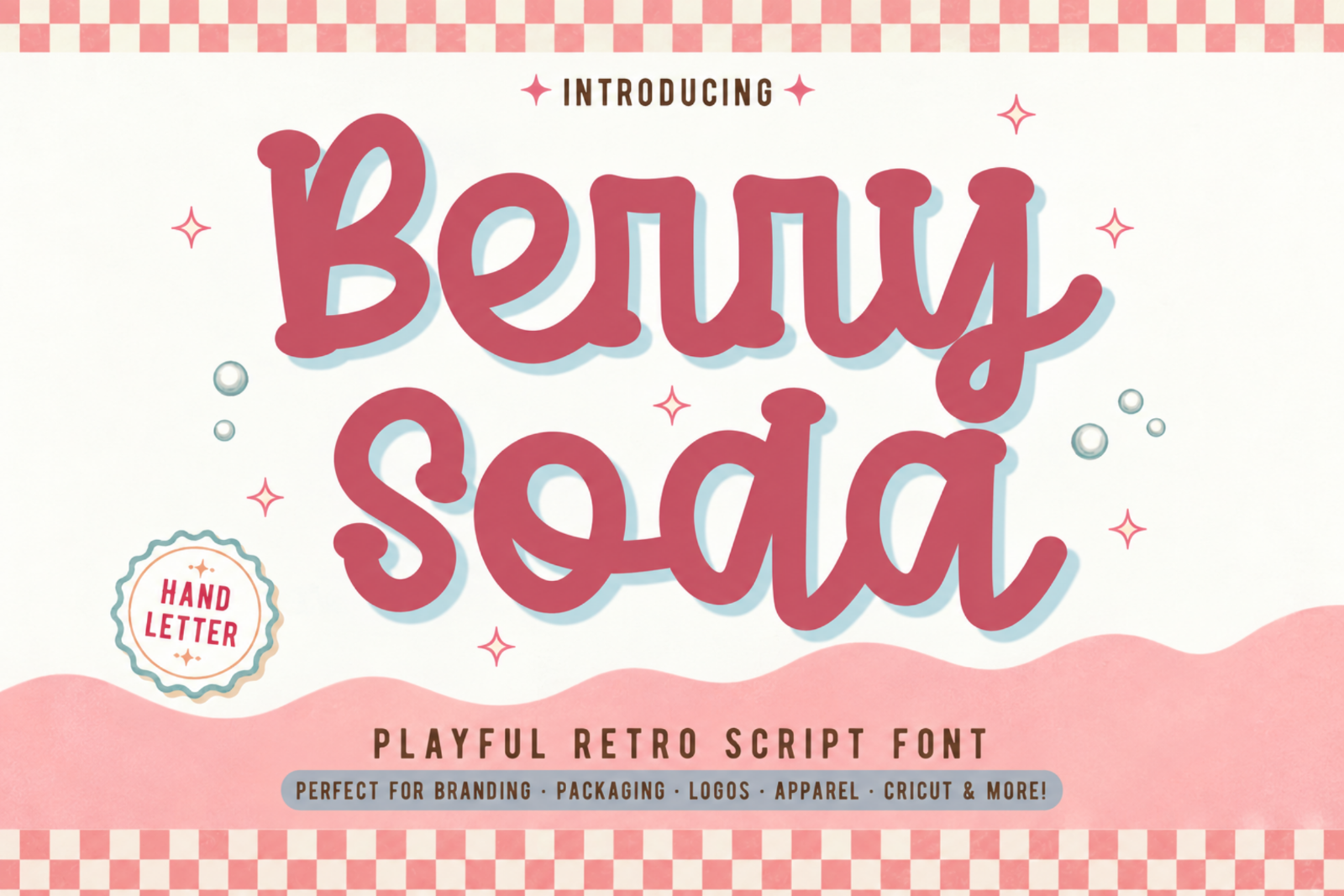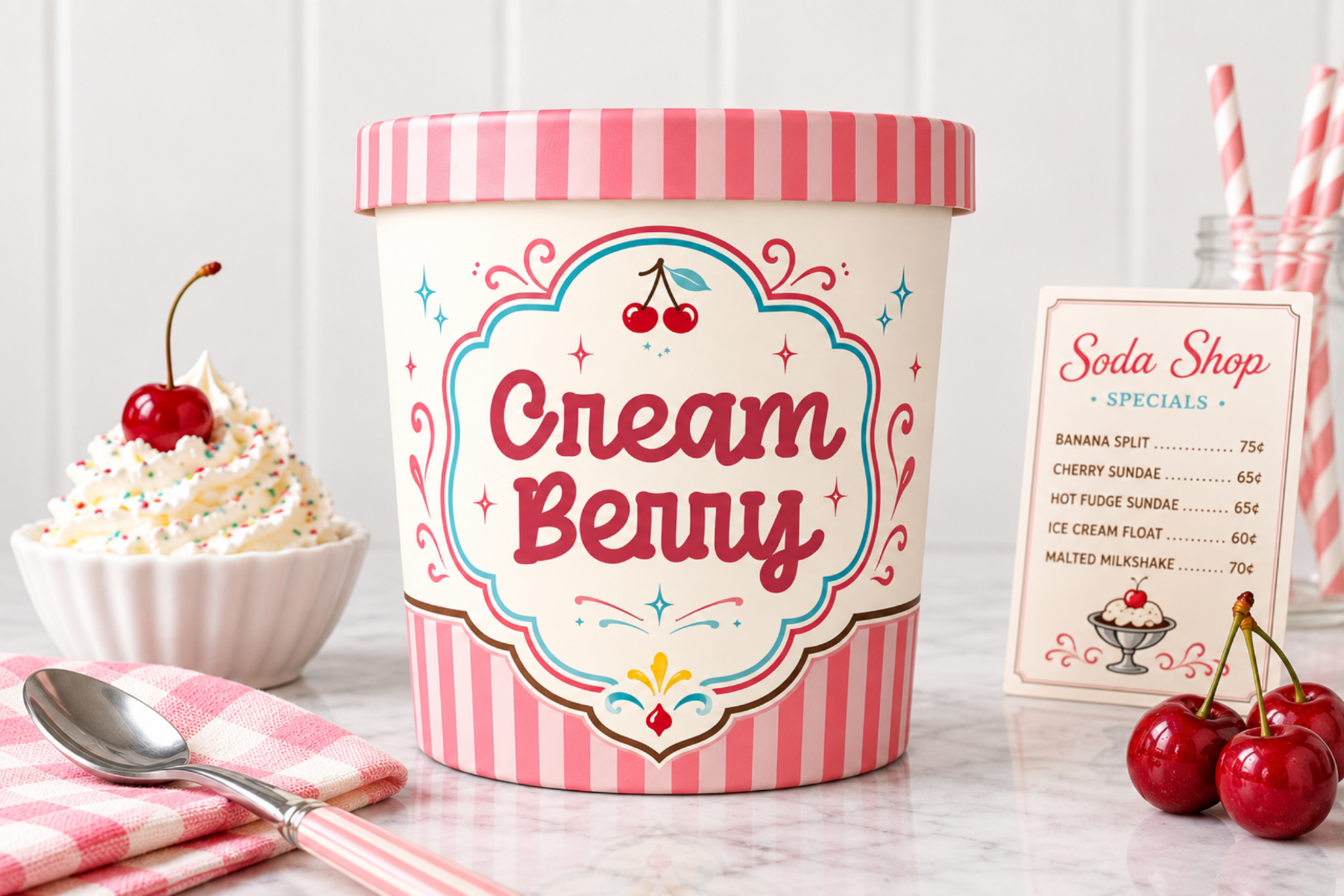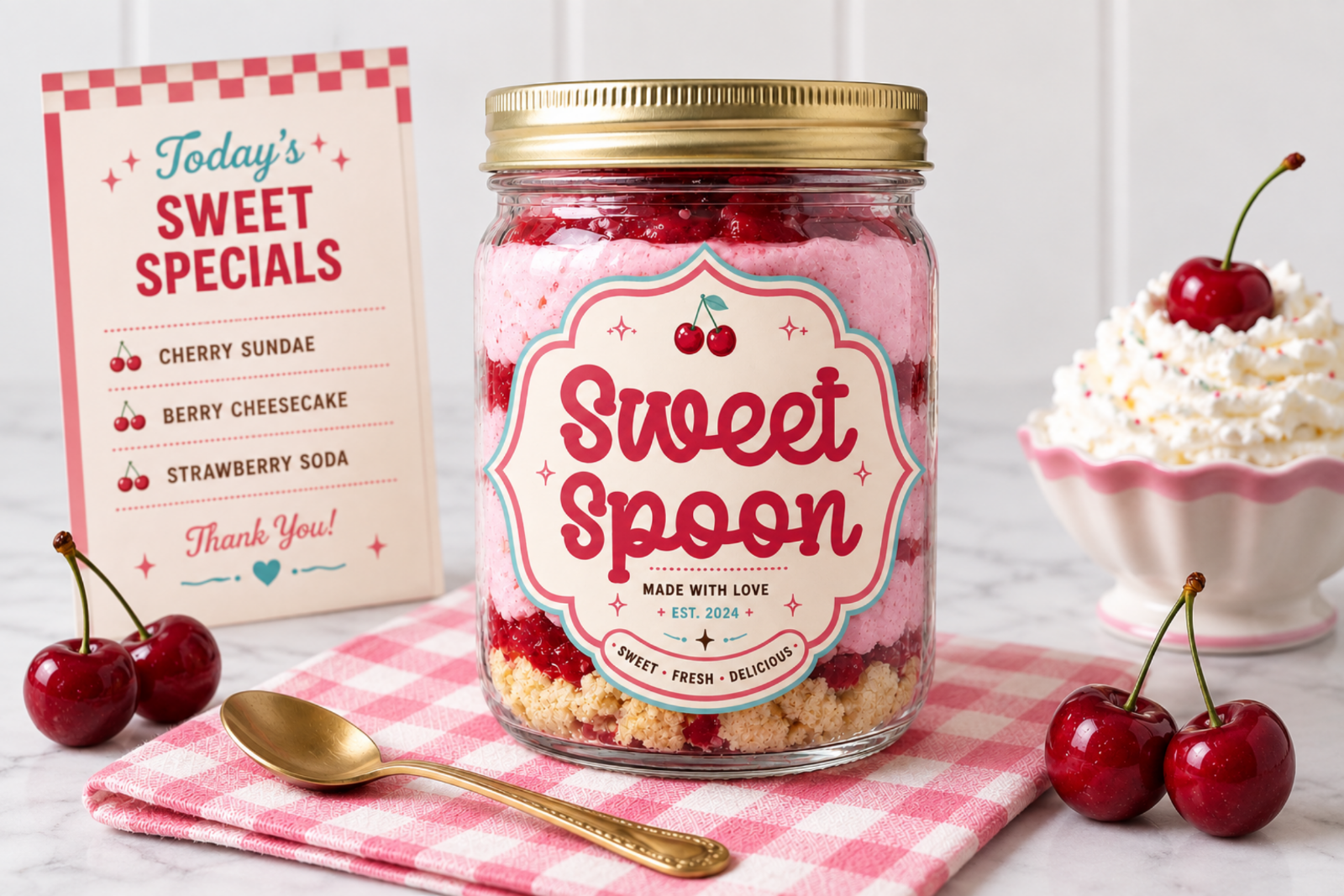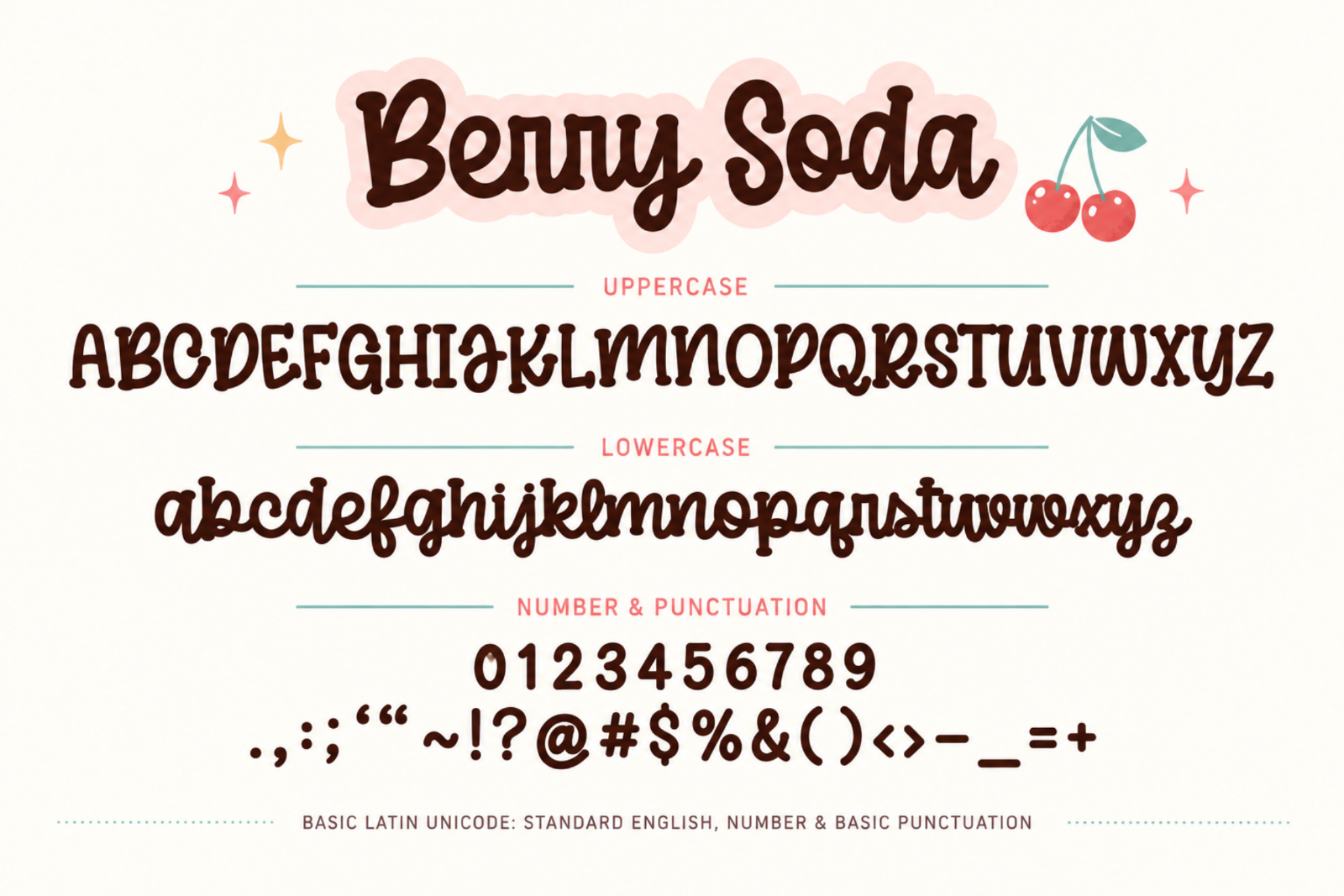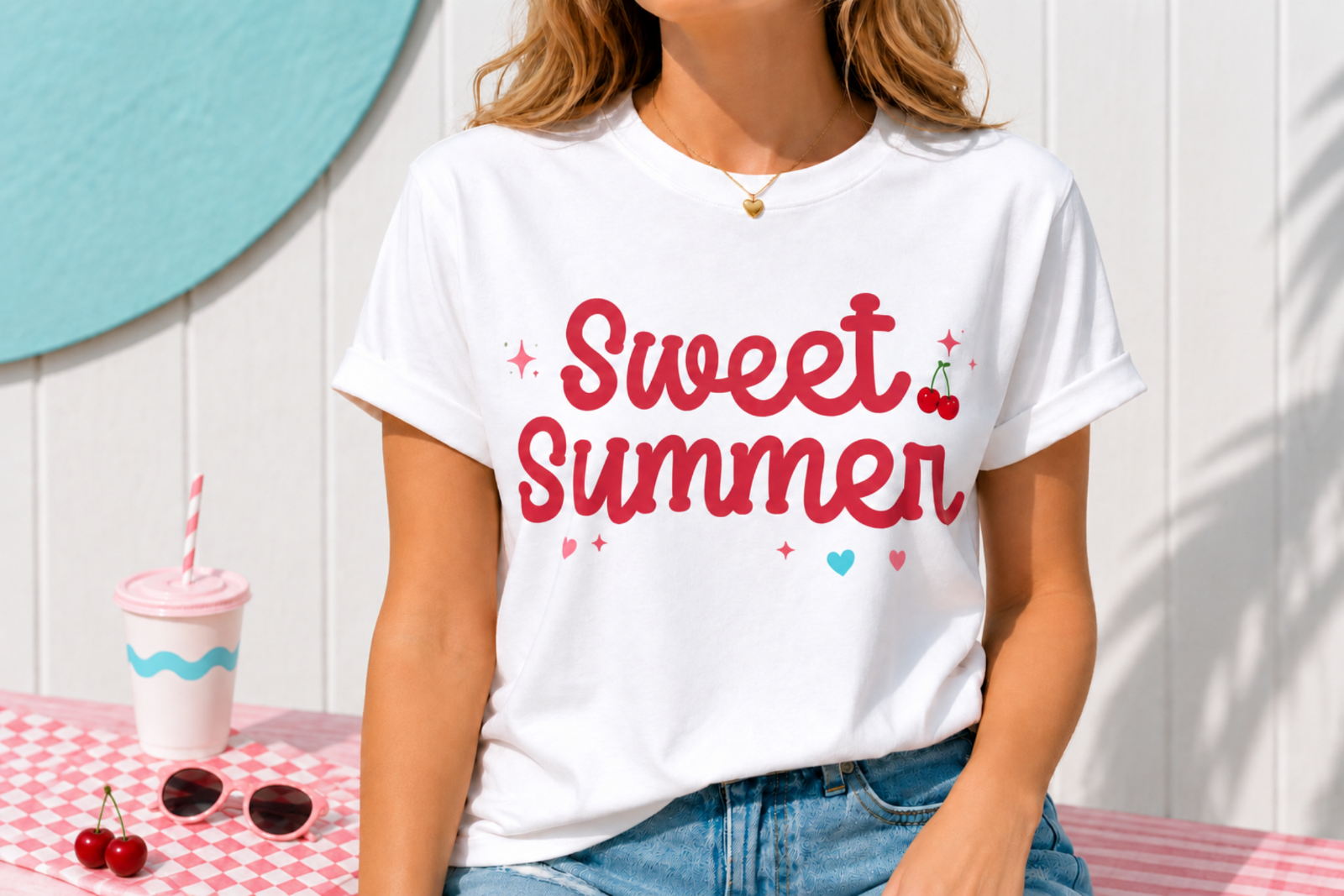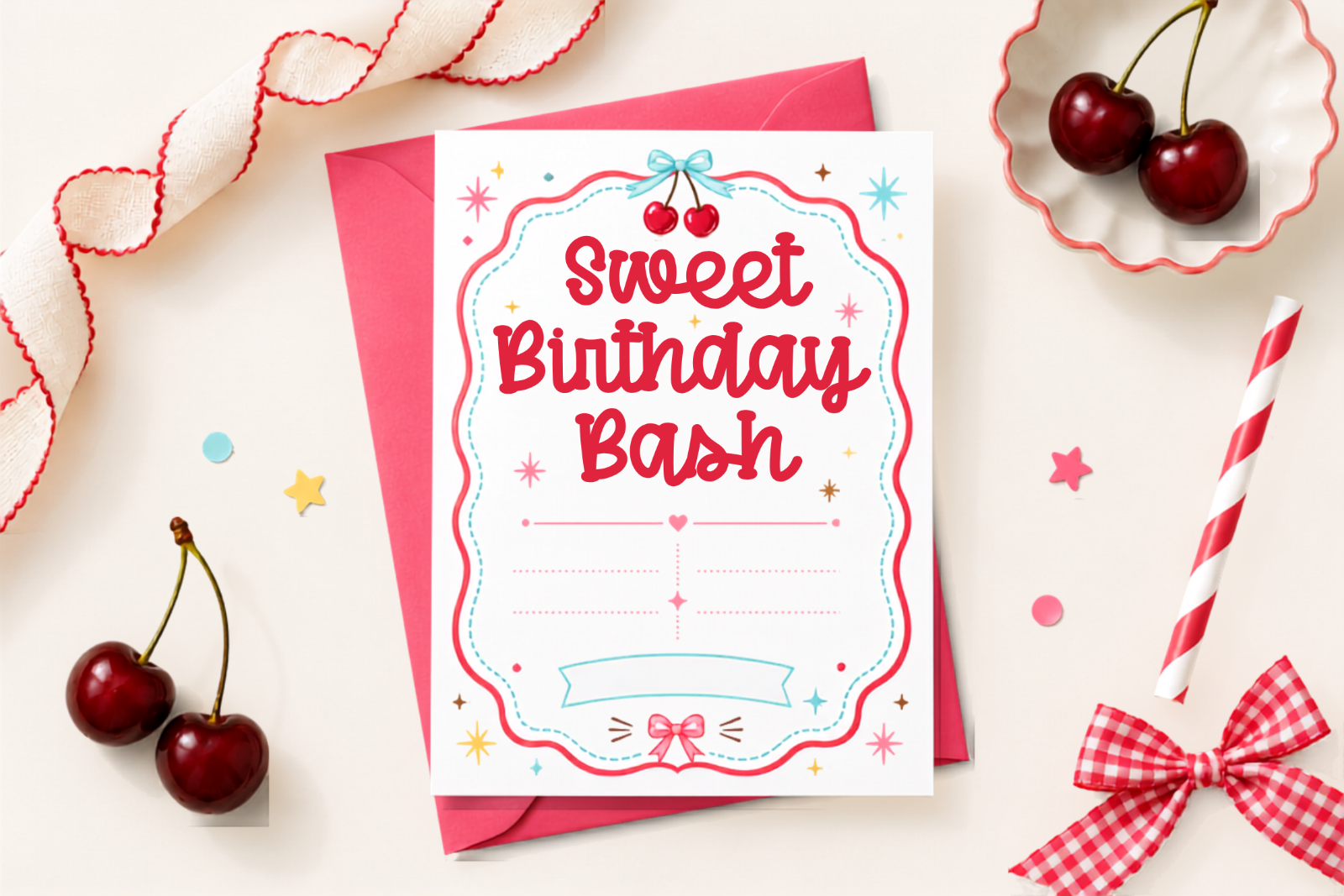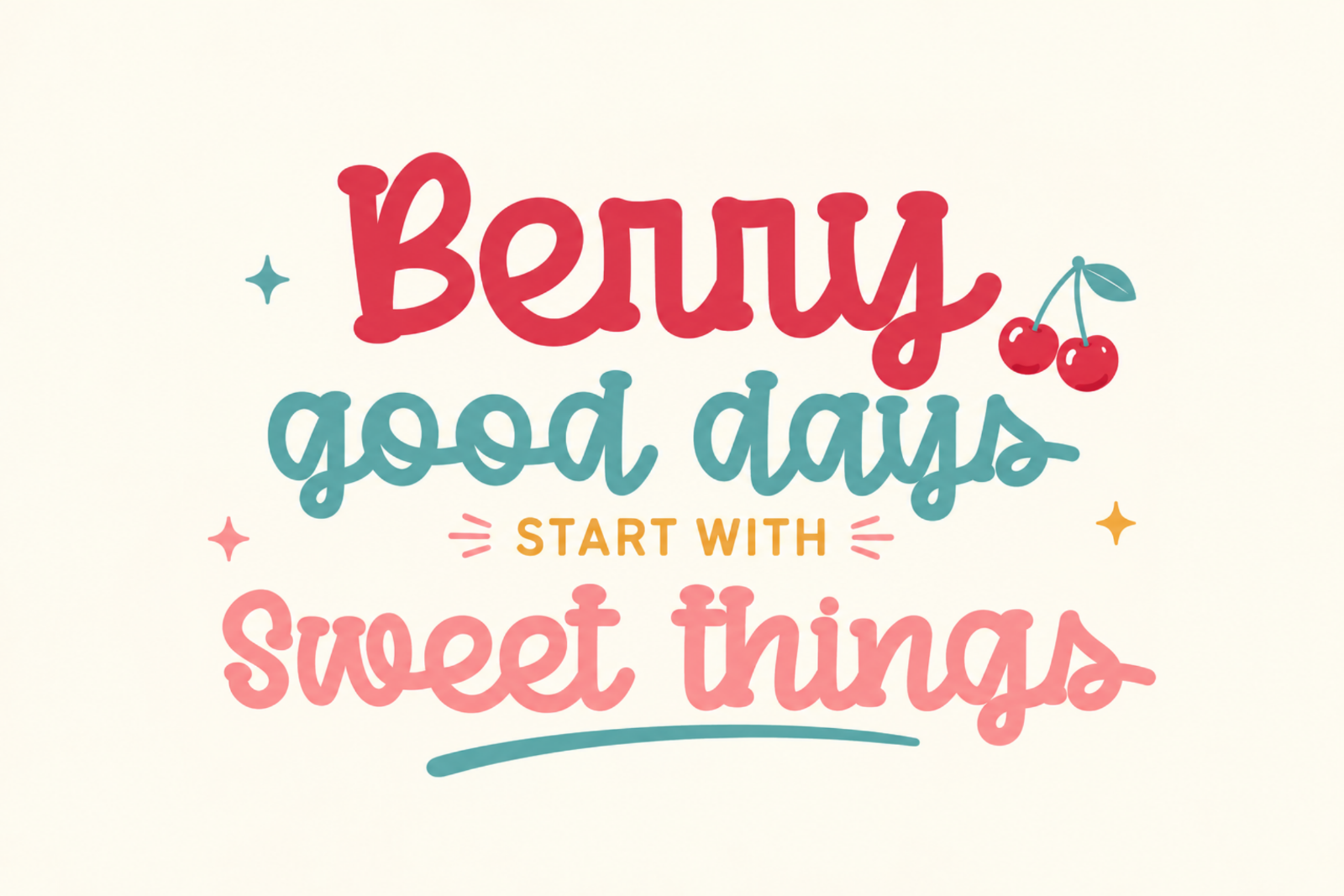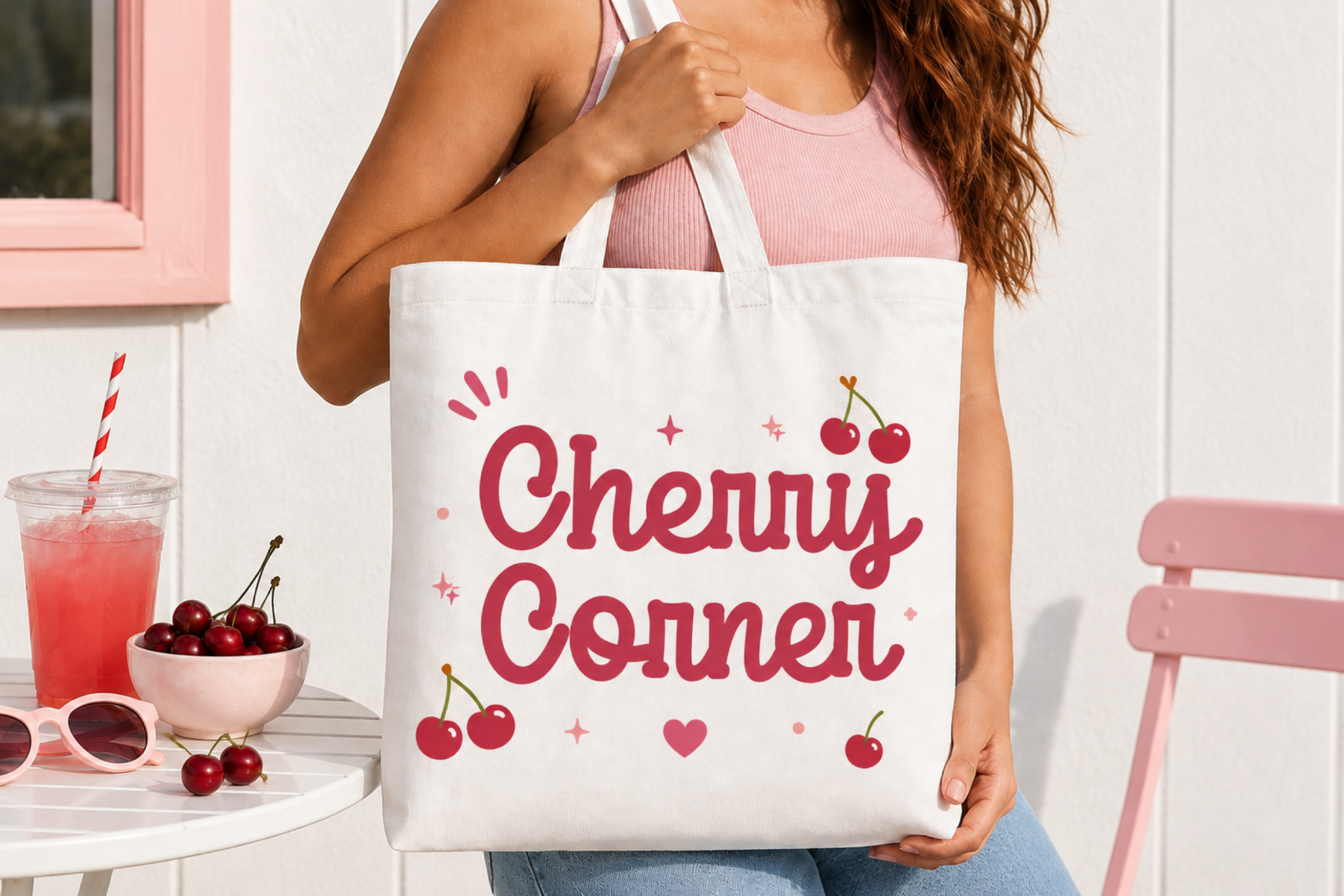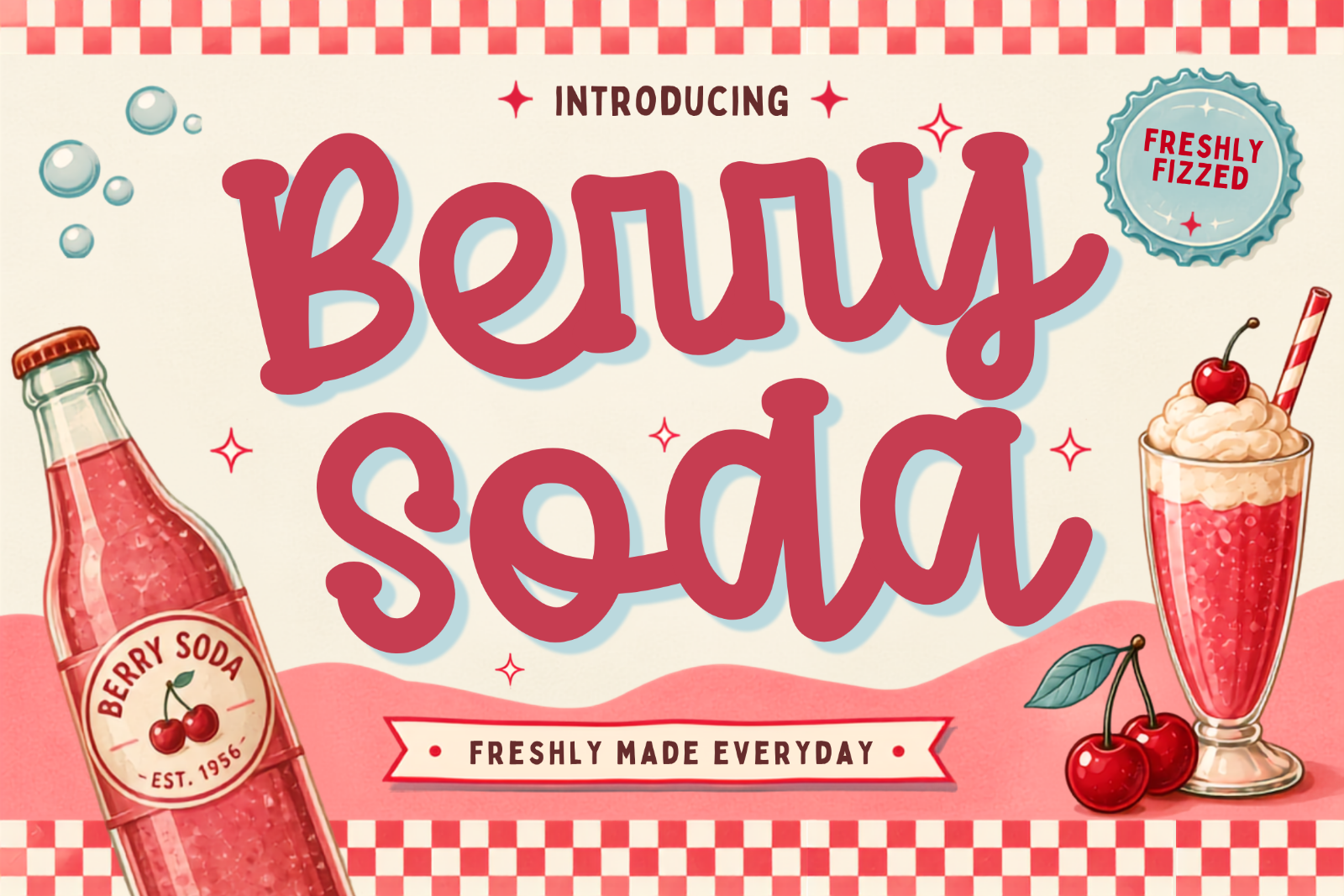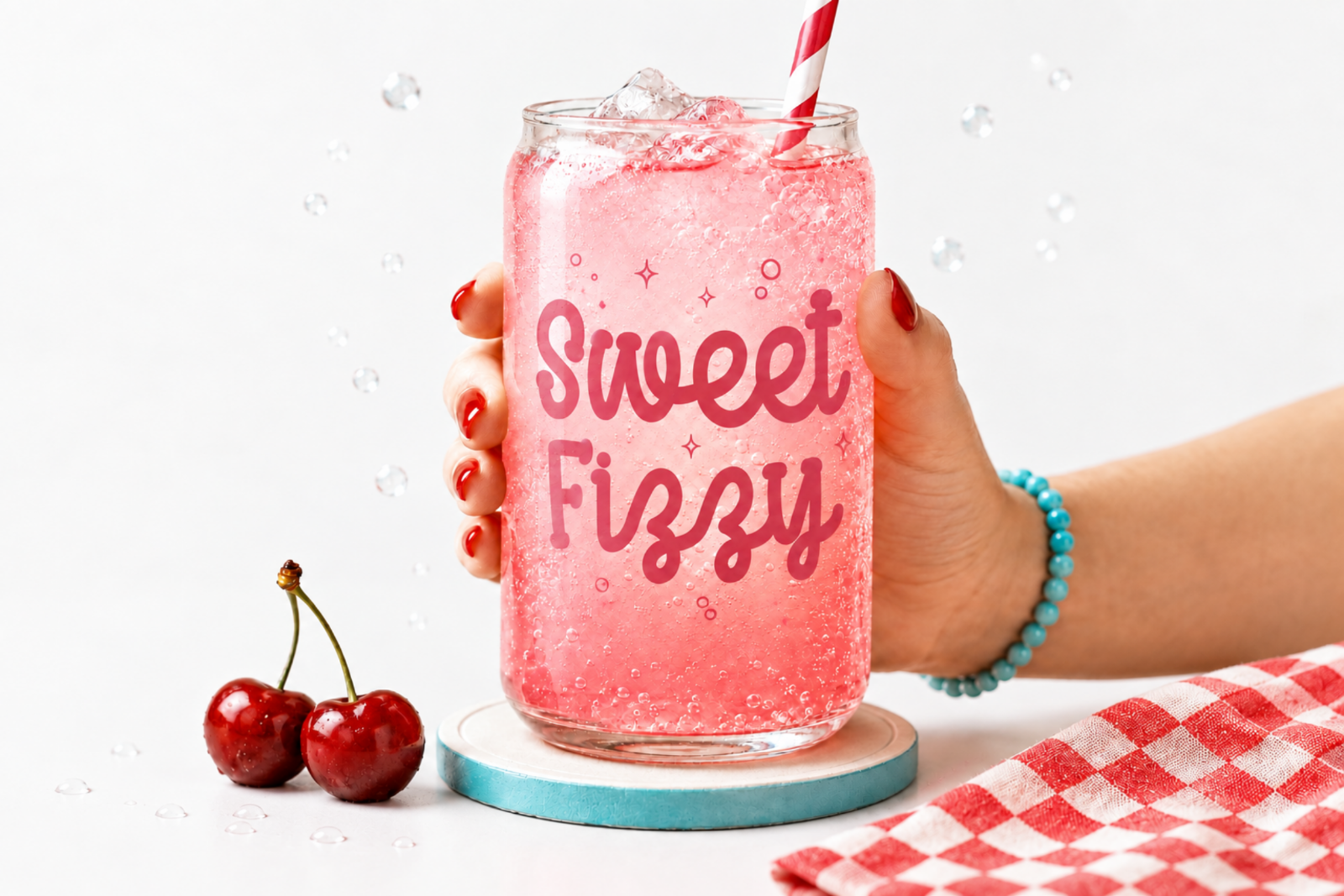
Berry Soda is a playful retro script font with bold, rounded letterforms and a cheerful hand-lettered personality. Inspired by vintage soda shops, sweet summer treats, nostalgic packaging and colorful café branding, Berry Soda is designed to make your words feel fun, friendly and instantly memorable.
Its smooth, chunky script style works beautifully when used large for logos, headlines and statement lettering, while the connected handwritten character gives designs a warm handmade touch.
Perfect For
• Logo & Brand Identity
• Café, Bakery & Food Branding
• Beverage & Dessert Packaging
• Product Labels & Stickers
• T-Shirts & Apparel
• Tote Bags & Merchandise
• Posters & Promotional Graphics
• Social Media Content
• Birthday & Party Invitations
• Greeting Cards
• Quotes & Lettering Designs
• Cricut & Craft Projects
Whether you're creating a nostalgic soda-shop logo, a cute dessert label, a summer T-shirt or playful social media graphics, Berry Soda brings a sweet retro personality to the design.
• Playful connected script style
• Bold, rounded letterforms
• Easy-to-read display lettering
Berry Soda works especially well for branding, packaging, logos, merchandise and large display typography, where its playful letterforms can become the main visual focus of the design.